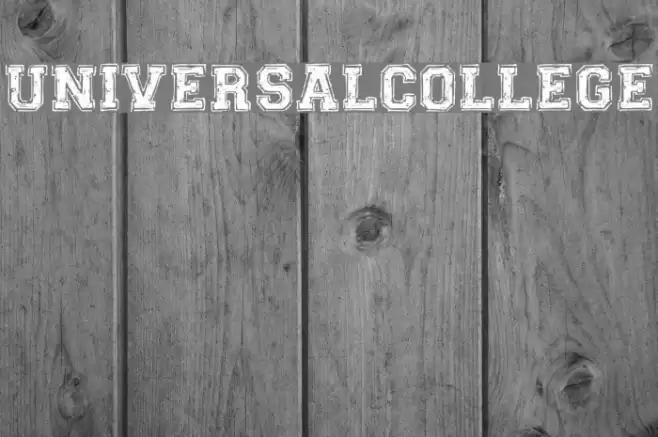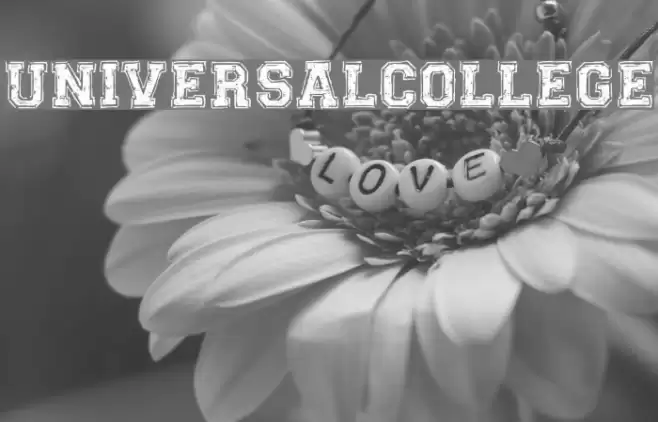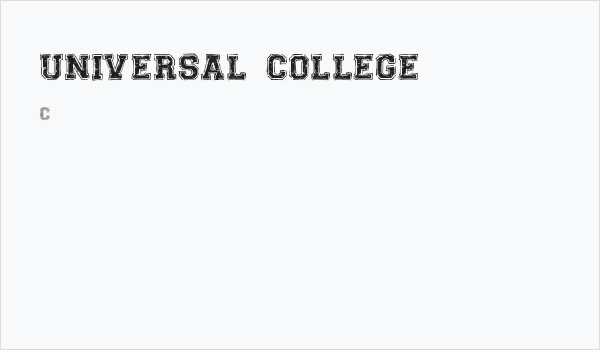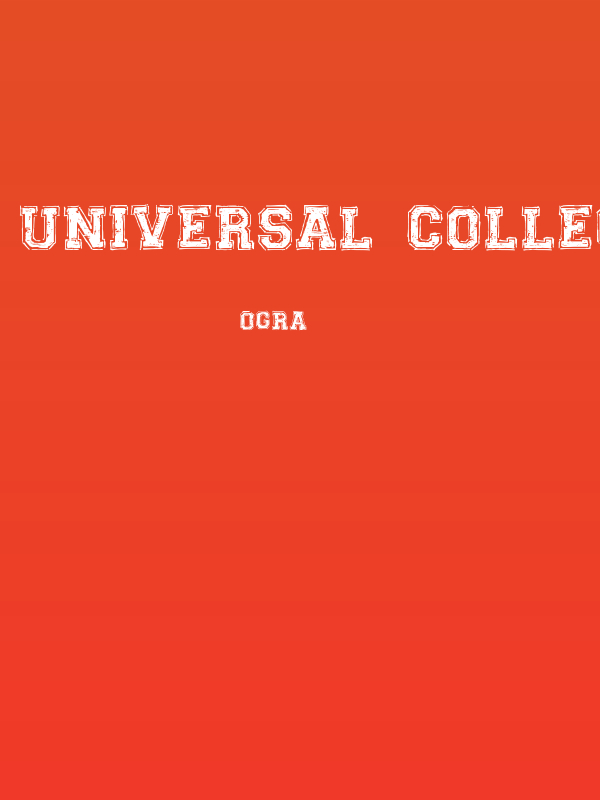
UNIVERSAL-COLLEGE Font
UNIVERSAL-COLLEGE Description
This font features a bold, decorative style with a distressed, vintage appearance. Each character is outlined with a thick, rugged border, giving it a strong, impactful presence. The letters are uppercase, with a uniform height and width, creating a cohesive and structured look. The distressed texture adds a sense of age and character, making it ideal for designs that require a retro or industrial feel. The font's boldness ensures it stands out, making it suitable for attention-grabbing headlines or titles. Its unique style is reminiscent of old-school signage or collegiate sports branding, offering a nostalgic yet timeless appeal.
| Proposed Projects | Perfect for vintage-themed posters, sports team branding, retro signage, and bold headlines. |